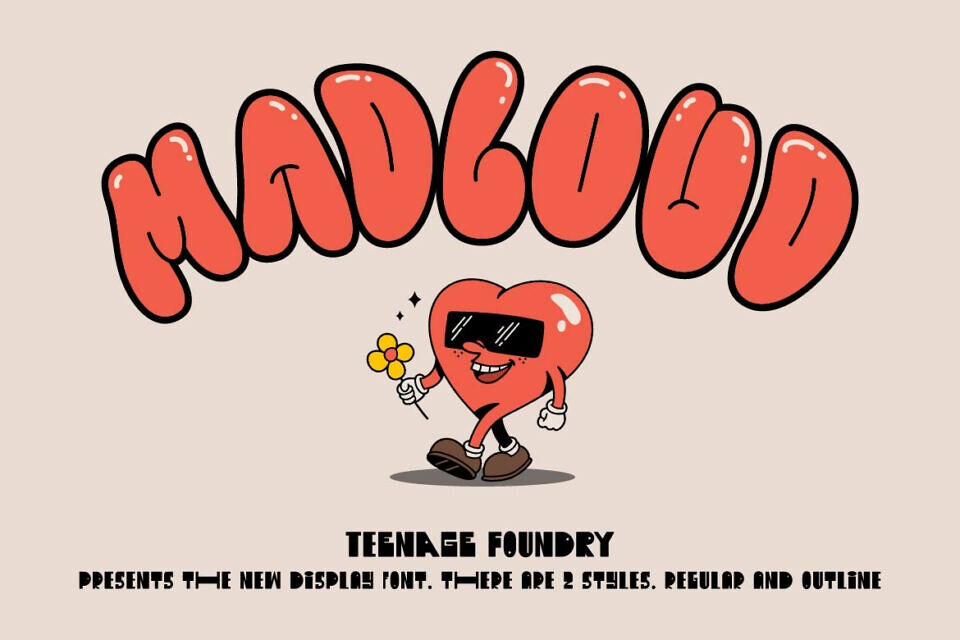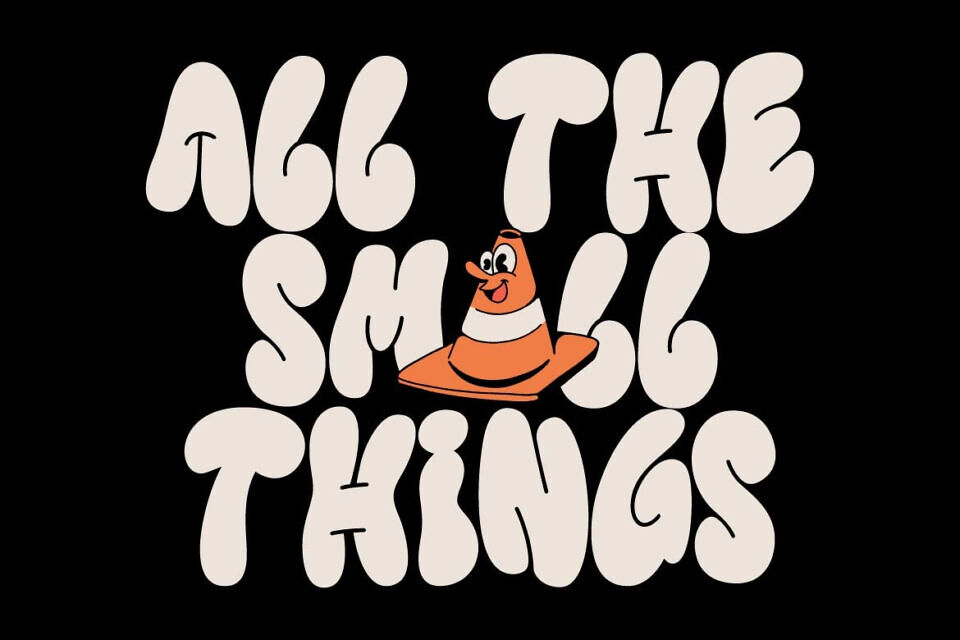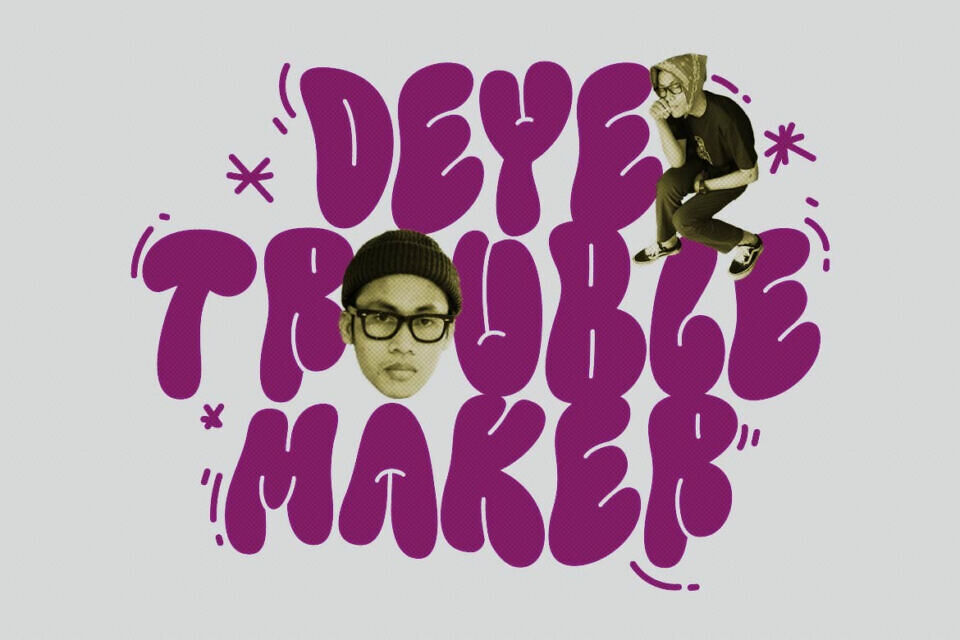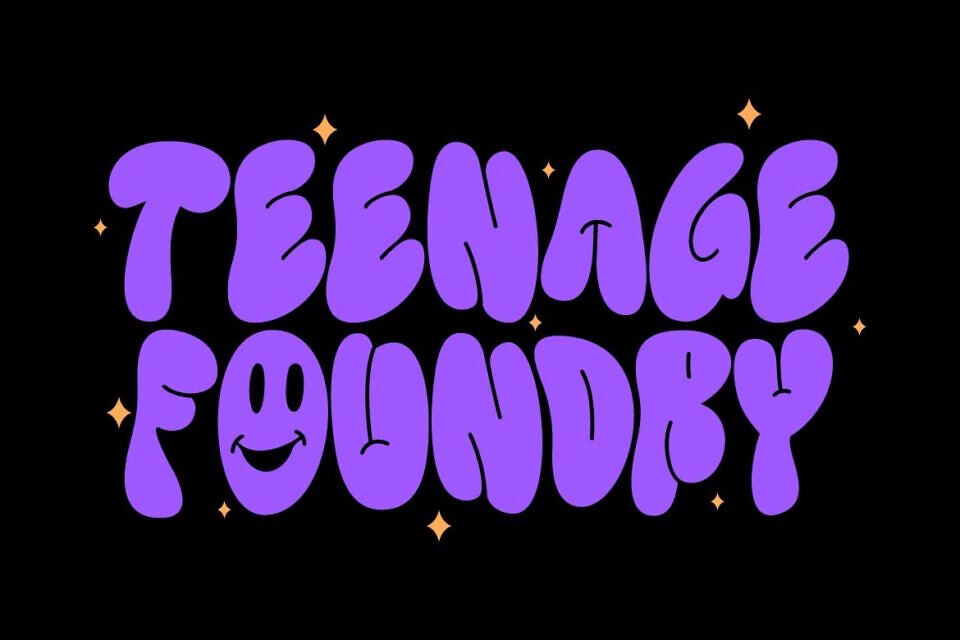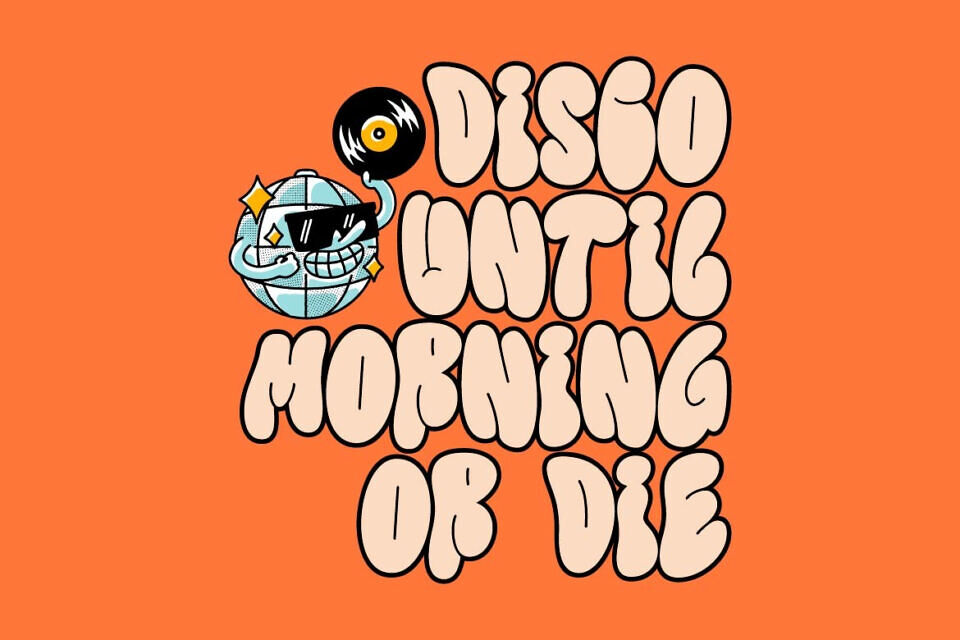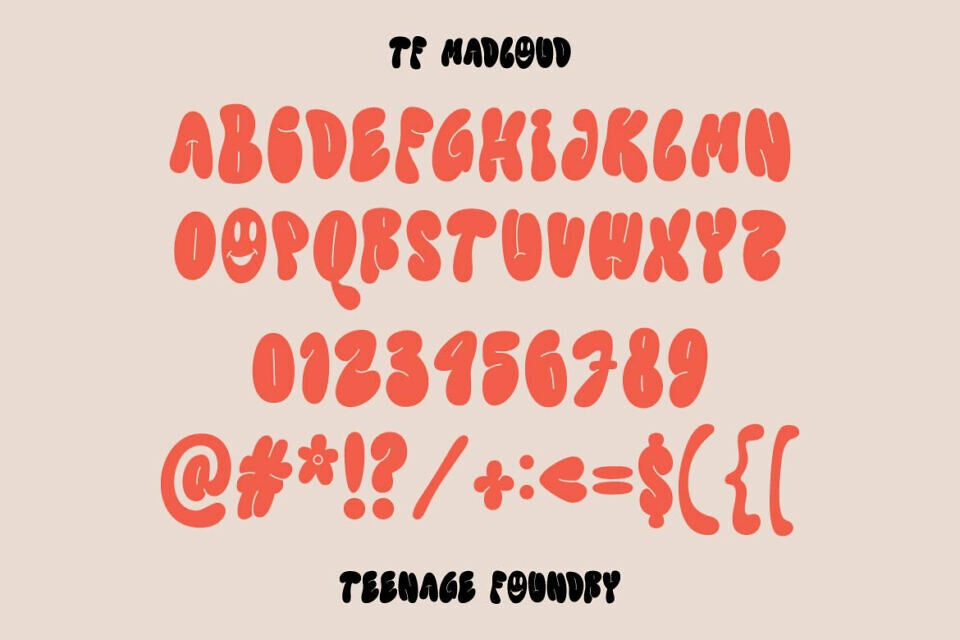
This bold and playful graffiti font is perfect for any project that needs an eye-catching touch. Its thick, rounded letters will grab attention and communicate a fun, carefree vibe. The hand-drawn style of this font gives it a unique, personal touch that sets it apart from more standard typefaces.